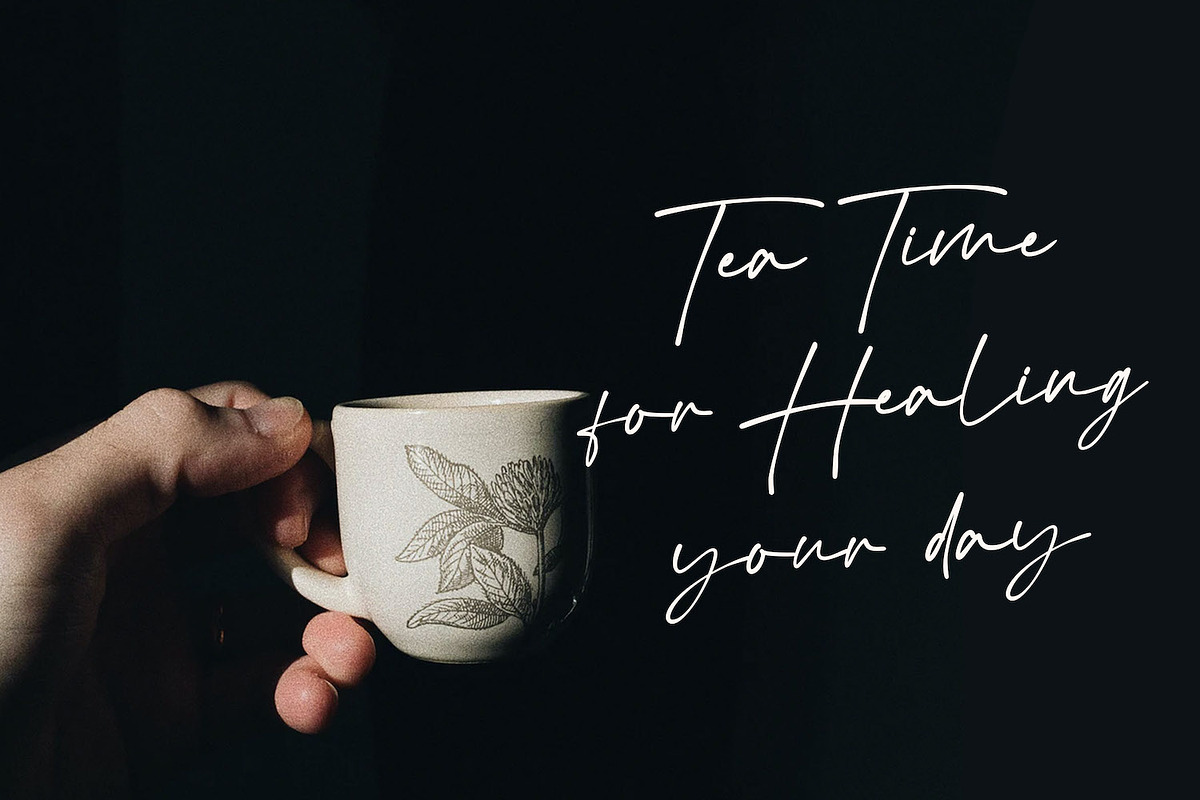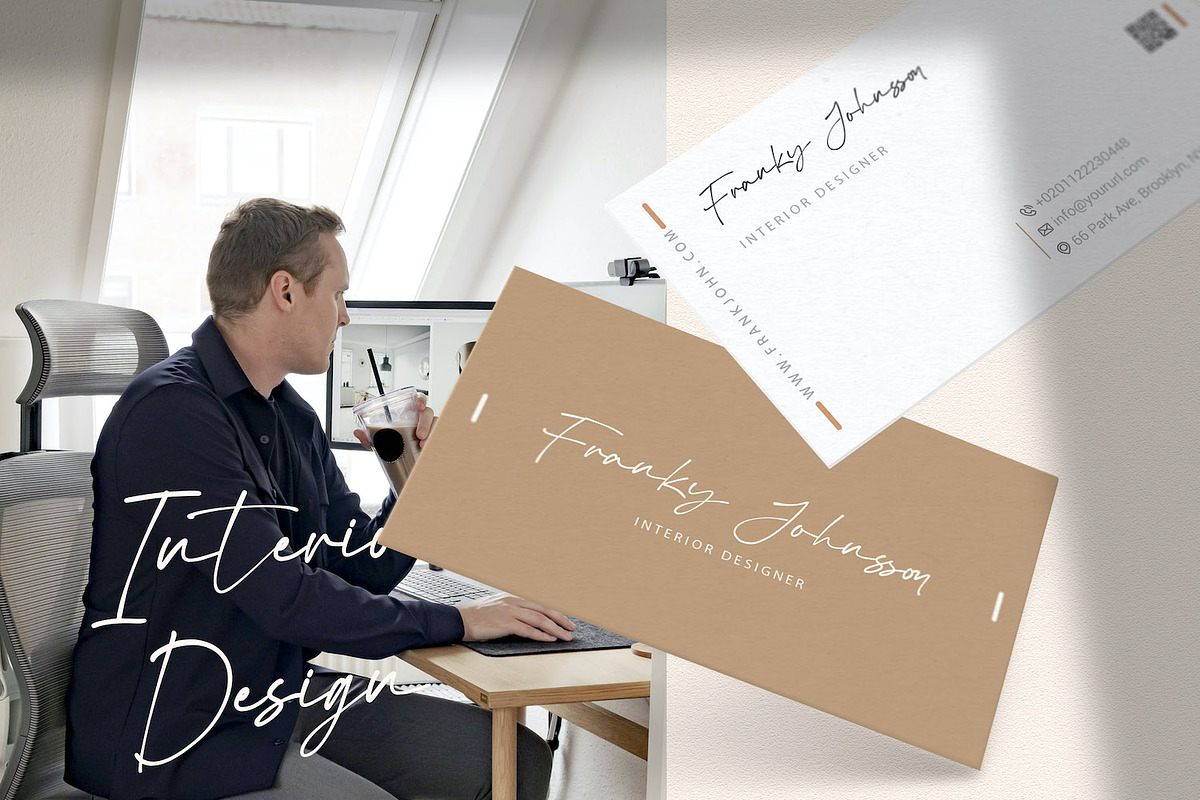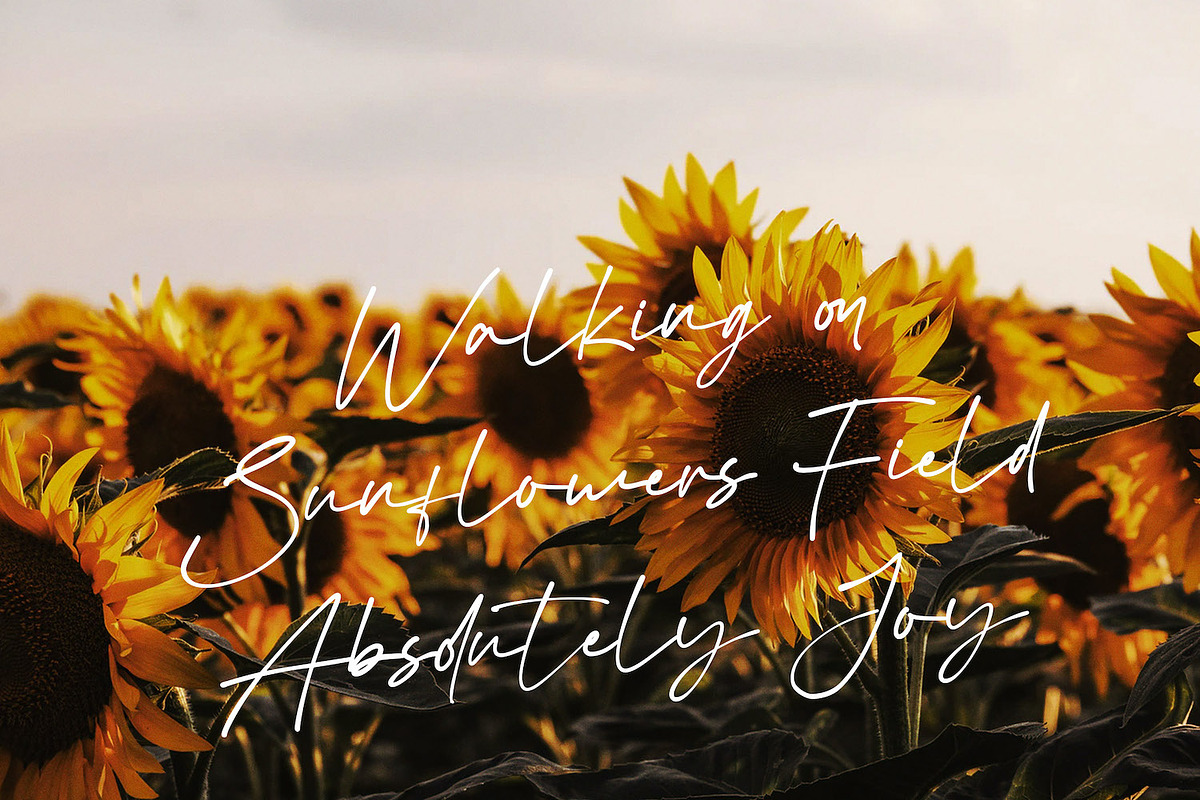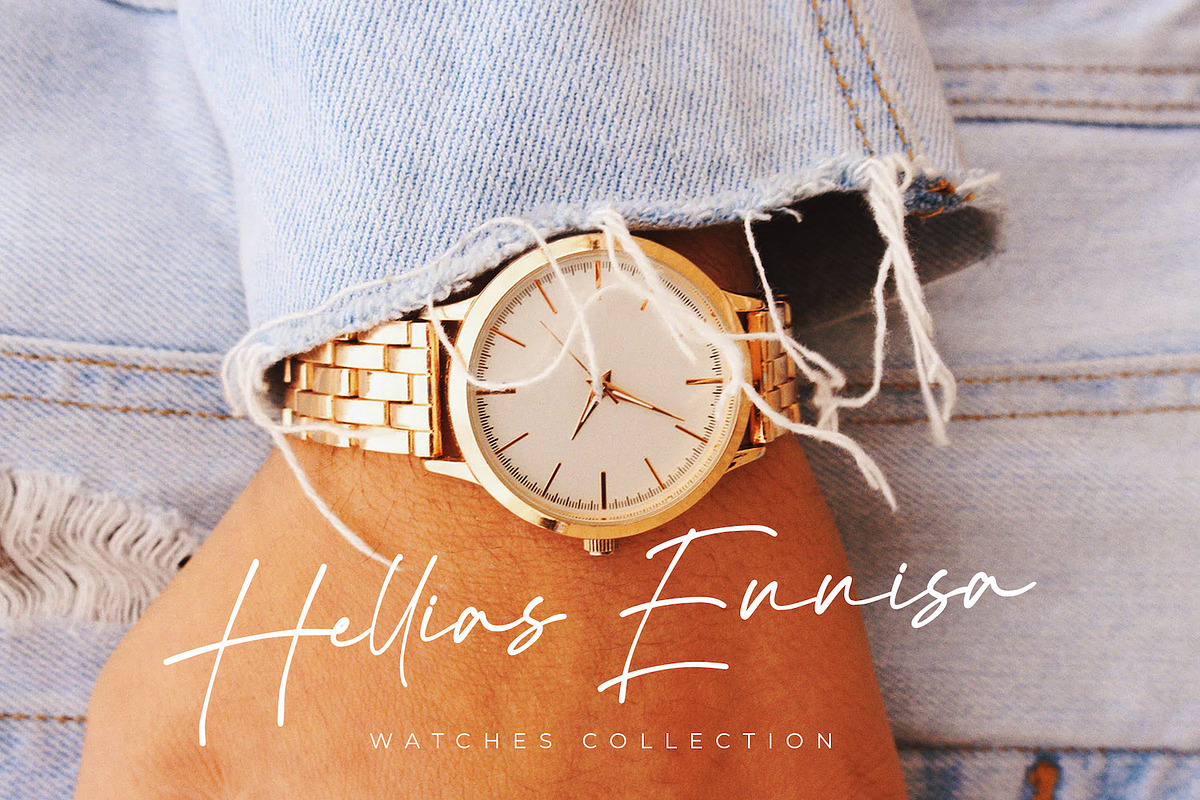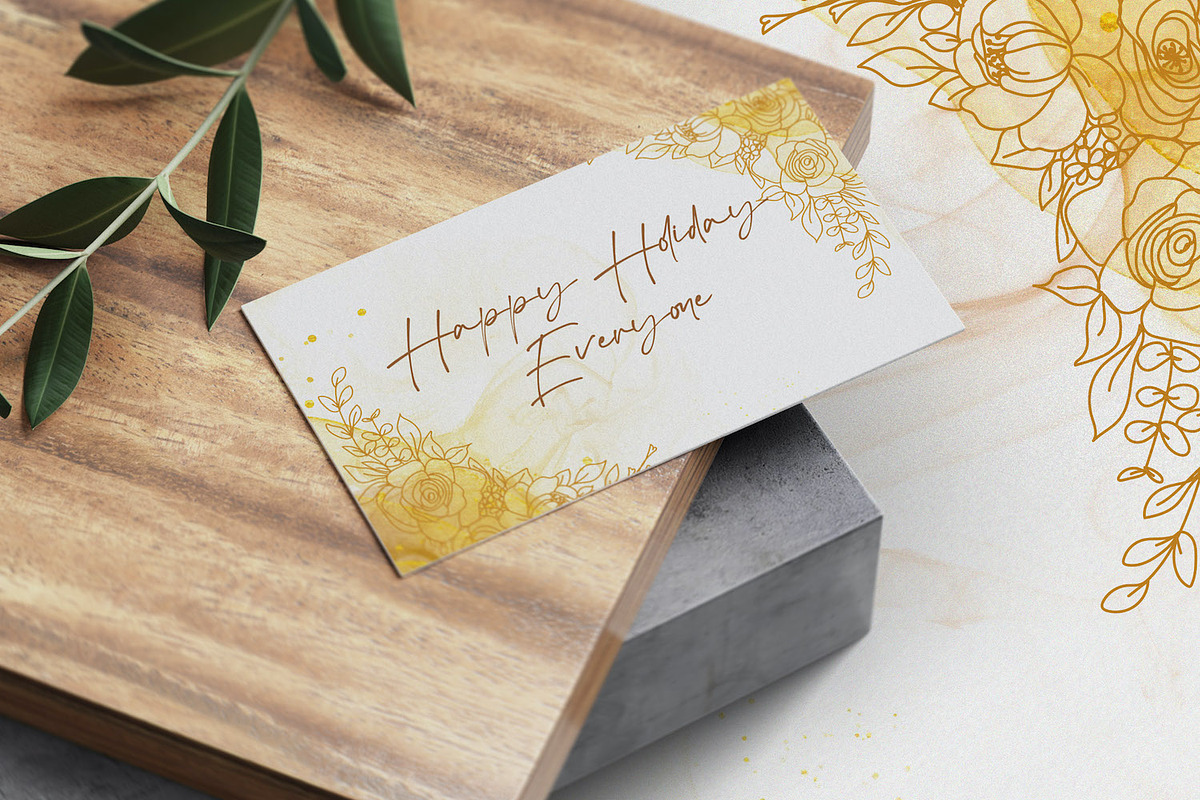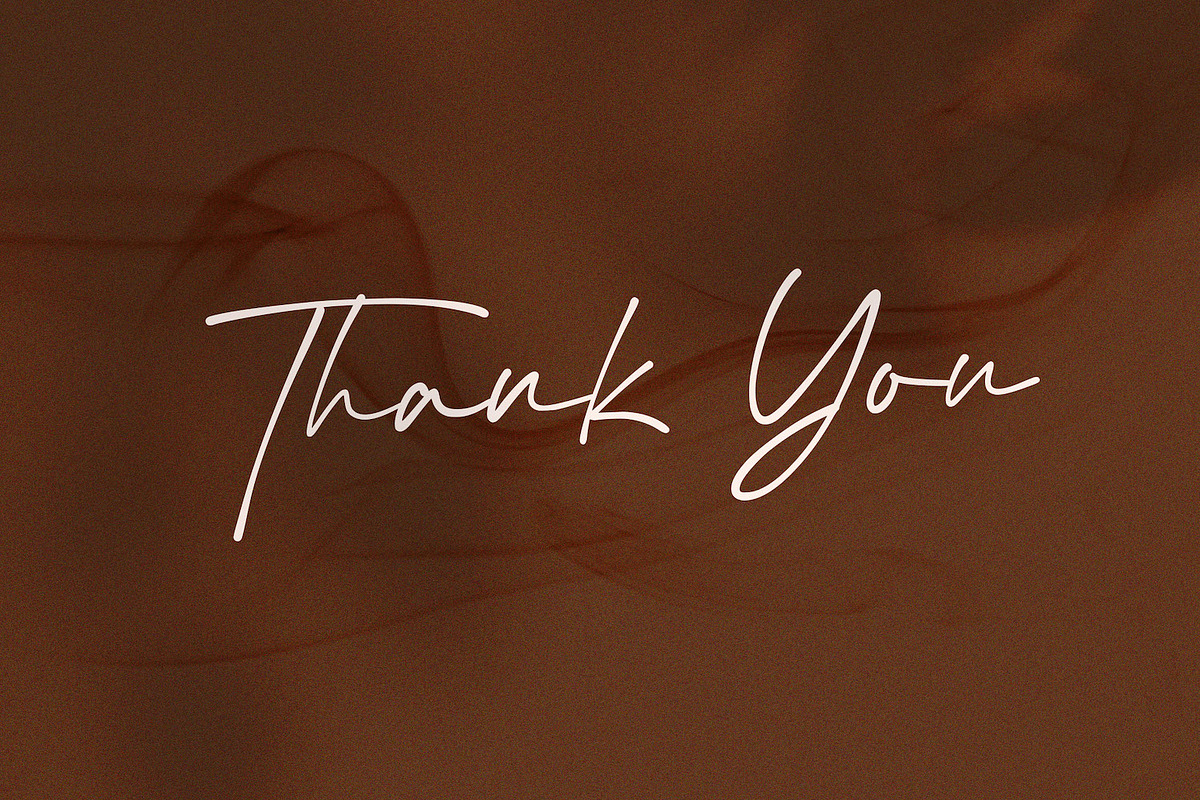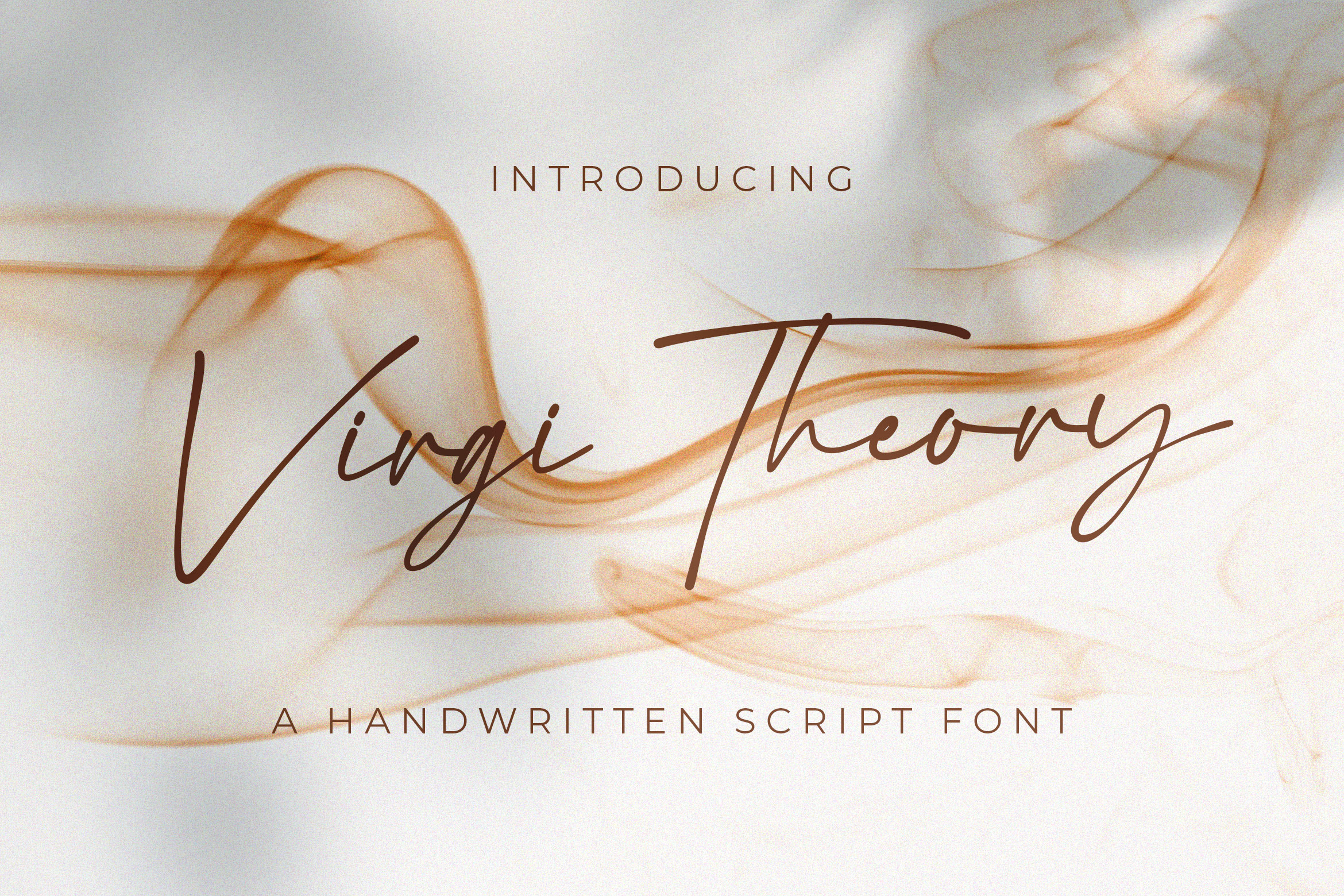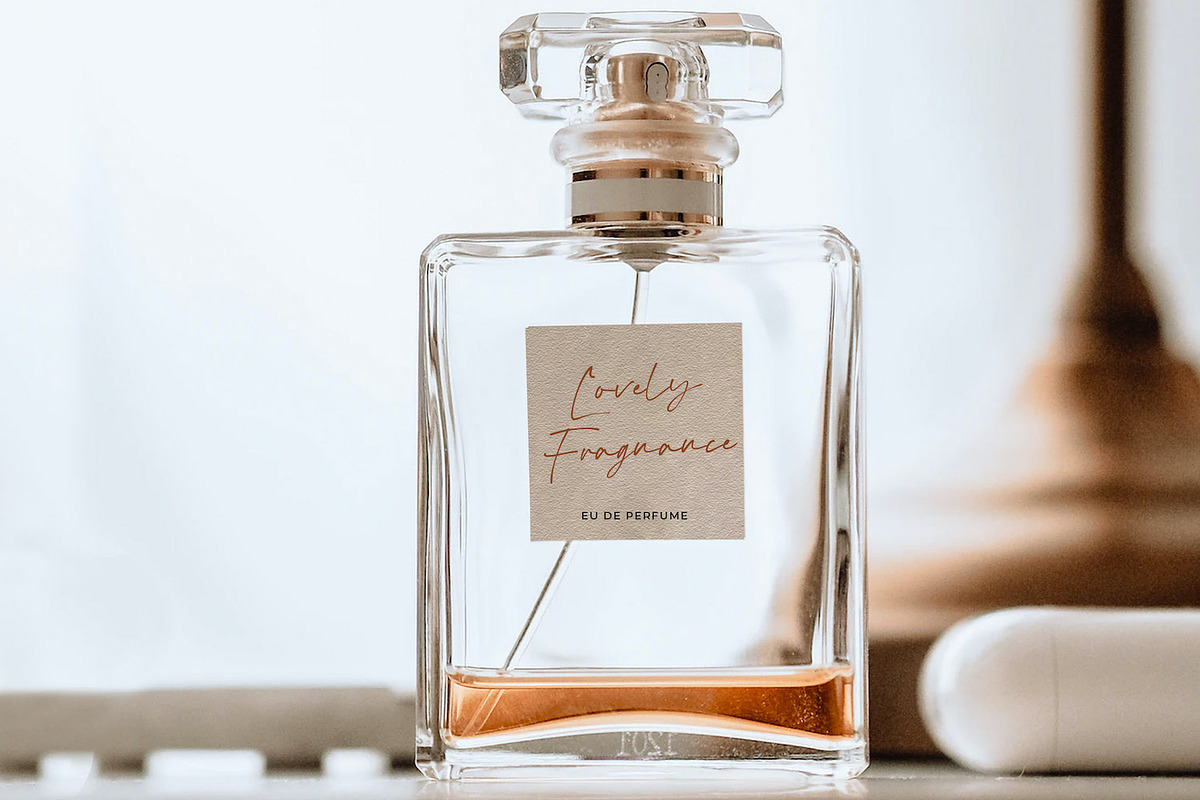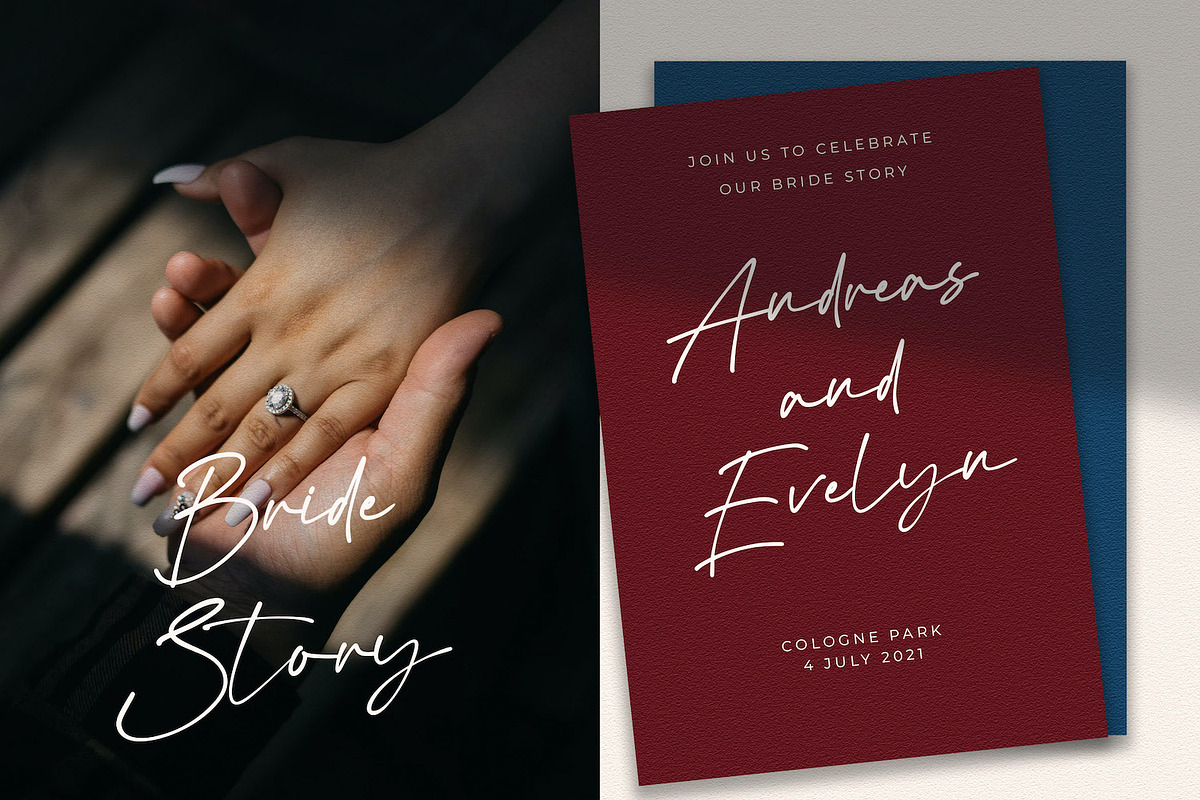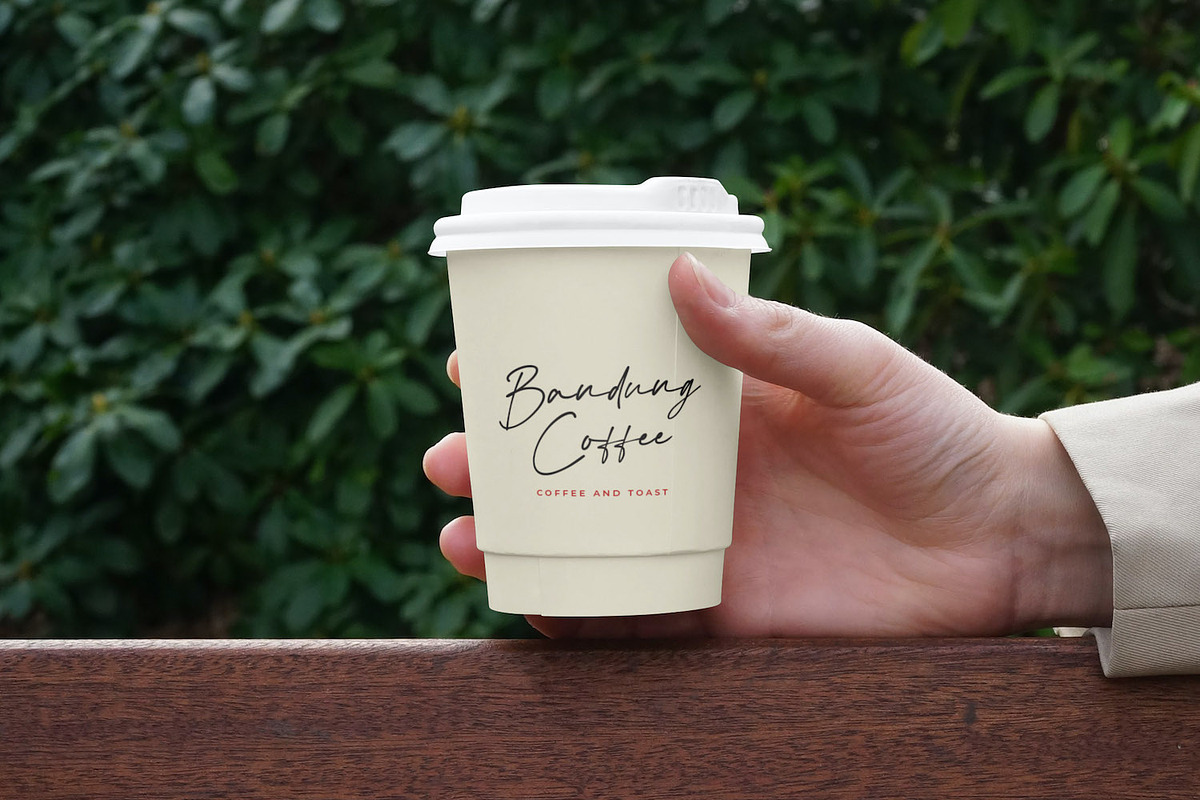
Virgi Theory - Handwritten Font
Introducing Virgi Theory - Handwritten Font
Virgi Theory is a delicate, elegant and flowing handwritten font. It has beautiful and well balanced characters and as a result, it matches a wide pool of designs. Add it to your most creative ideas and notice how it makes them come alive!